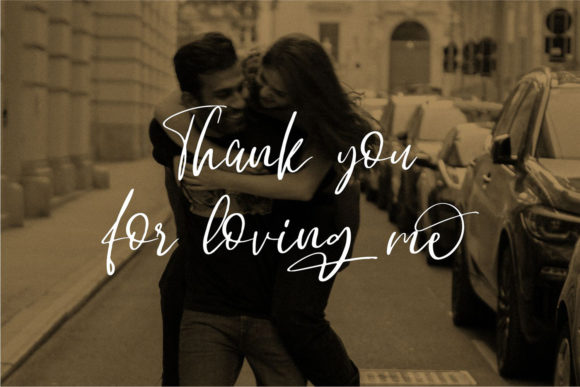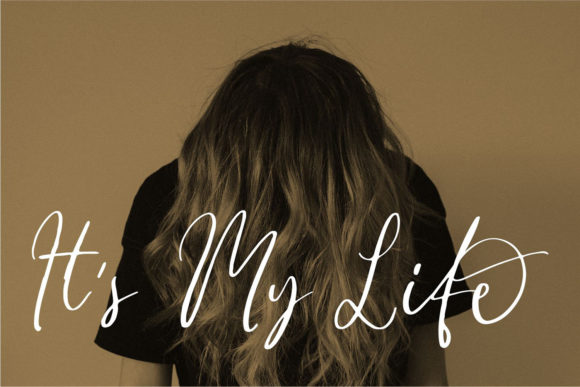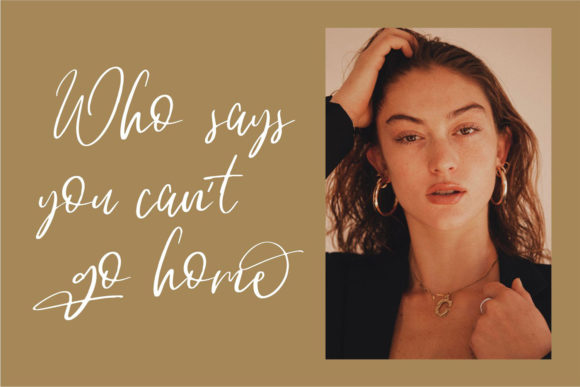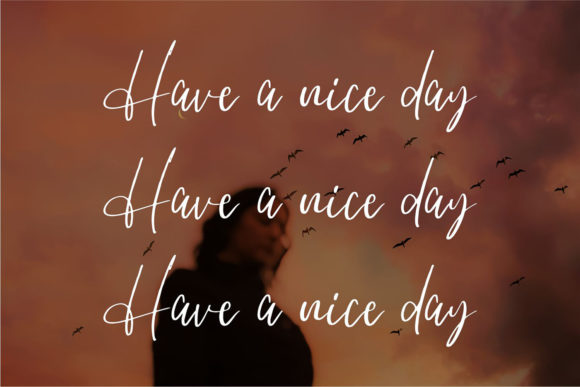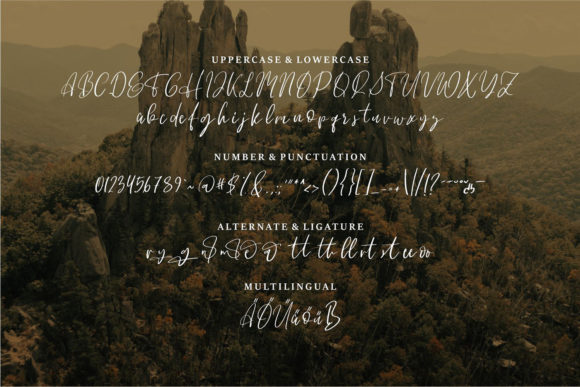
The Elusive Perfect Font: My Love Affair with Bimitra
I’ll never forget the frustration of working on a design project, hours spent scrolling through font libraries, and yet, nothing seemed quite right. That was until I stumbled upon Bimitra, a delicate and stylish script font that has since become a staple in my design toolkit. In this article, I’ll share my experience with Bimitra, its features, and how to make the most of this beautiful font.
First Impressions: A Beautiful and Balanced Character
Bimitra’s character is indeed beautiful and balanced, fitting well with the large design pool. The shape of each character is very clean and contemporary, making it perfect for a variety of design projects. Whether you’re working on a logo, branding materials, or social media graphics, Bimitra’s elegant lines and curves are sure to impress.
What I Love About Bimitra ✨
- ✅ Elegant and sophisticated design
- ✅ Clean and contemporary character shapes
- ✅ Highly versatile and adaptable to different design projects
- ✅ Beautifully crafted to evoke a sense of luxury and refinement
- ⚠️ Limited use in very formal or traditional design contexts, where a more traditional serif font might be more suitable
- ⚠️ May not be the best choice for very long blocks of text, where readability is a concern
A Practical Guide to Using Bimitra
The Story Behind Bimitra
Bimitra was designed with the intention of creating a beautiful and elegant script font that would meet the needs of designers and crafters. The design process involved careful consideration of character shapes, spacing, and overall flow. The result is a font that’s both refined and versatile.
Q: What is Bimitra’s design style?
A: Bimitra is a delicate and stylish script font with a clean and contemporary character.
Q: Is Bimitra suitable for body text?
A: While Bimitra is beautiful, it may not be the best choice for long blocks of text. Consider using a more readable font for body text.